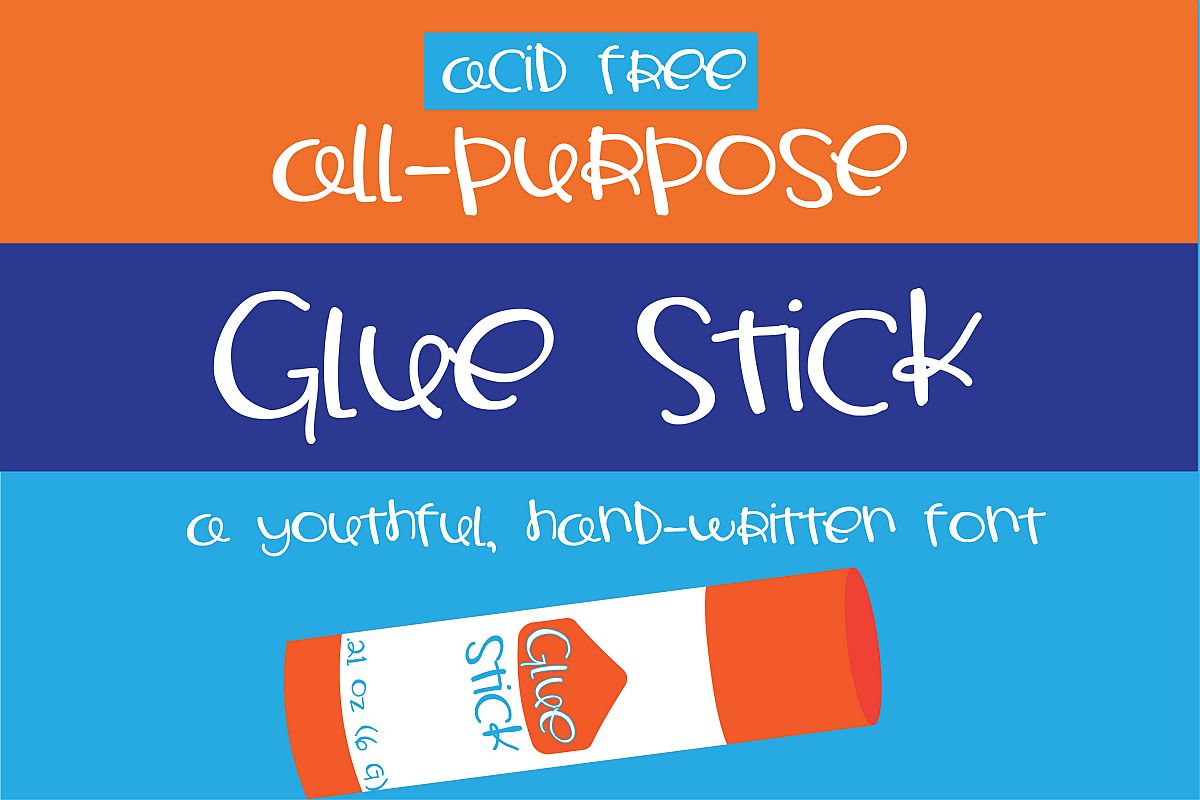
ZP Glue Stick
This whimsical, hand-lettered font is a cute, youthful font that adds a childish appeal to any project.
Numbers and symbols
International characters